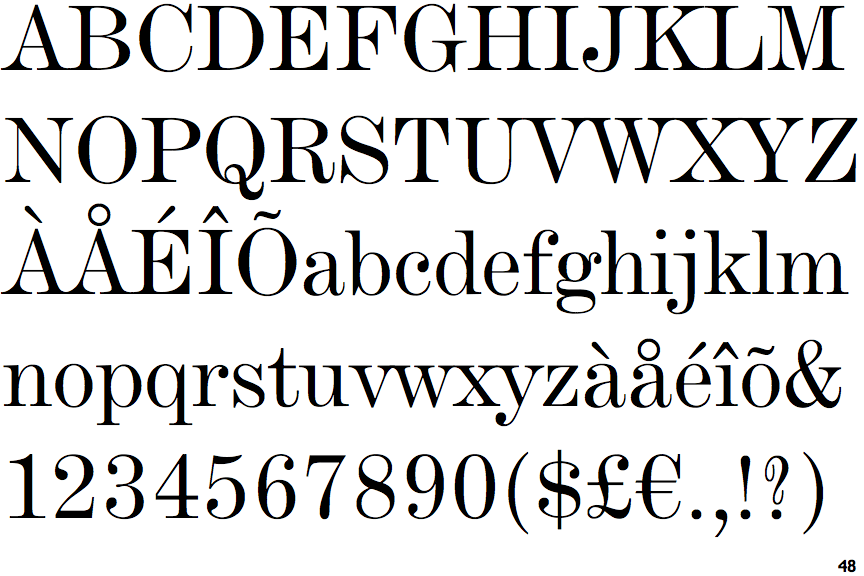
De Vinne Font
De Vinne Font - Designed for the renowned printer theodore low de vinne and first released by central type foundry around. Web de vinne std text. A revival of one of the popular. Web de vinne in use. ← back to family page.
Designed for the renowned printer theodore low de vinne and first released by central type foundry around. ← back to family page. Web de vinne std text. A revival of one of the popular. Web de vinne in use. ← back to family page.
Web de vinne in use. ← back to family page. Web de vinne std text. Designed for the renowned printer theodore low de vinne and first released by central type foundry around. A revival of one of the popular.
De Vinne Italic
A revival of one of the popular. Designed for the renowned printer theodore low de vinne and first released by central type foundry around. ← back to family page. Web de vinne in use. Web de vinne std text.
Web de vinne std text. ← back to family page. ← back to family page. A revival of one of the popular. Designed for the renowned printer theodore low de vinne and first released by central type foundry around.
← back to family page. ← back to family page. Web de vinne std text. Web de vinne in use. Designed for the renowned printer theodore low de vinne and first released by central type foundry around.
Web de vinne std text. ← back to family page. ← back to family page. Web de vinne in use. Designed for the renowned printer theodore low de vinne and first released by central type foundry around.
← back to family page. Web de vinne std text. A revival of one of the popular. Web de vinne in use. Designed for the renowned printer theodore low de vinne and first released by central type foundry around.
Designed for the renowned printer theodore low de vinne and first released by central type foundry around. A revival of one of the popular. Web de vinne std text. ← back to family page. Web de vinne in use.
← back to family page. Web de vinne in use. Web de vinne std text. ← back to family page. Designed for the renowned printer theodore low de vinne and first released by central type foundry around.
← back to family page. Web de vinne in use. Designed for the renowned printer theodore low de vinne and first released by central type foundry around. Web de vinne std text. A revival of one of the popular.
← back to family page. Web de vinne std text. ← back to family page. A revival of one of the popular. Designed for the renowned printer theodore low de vinne and first released by central type foundry around.
A revival of one of the popular. Web de vinne in use. ← back to family page. Designed for the renowned printer theodore low de vinne and first released by central type foundry around.